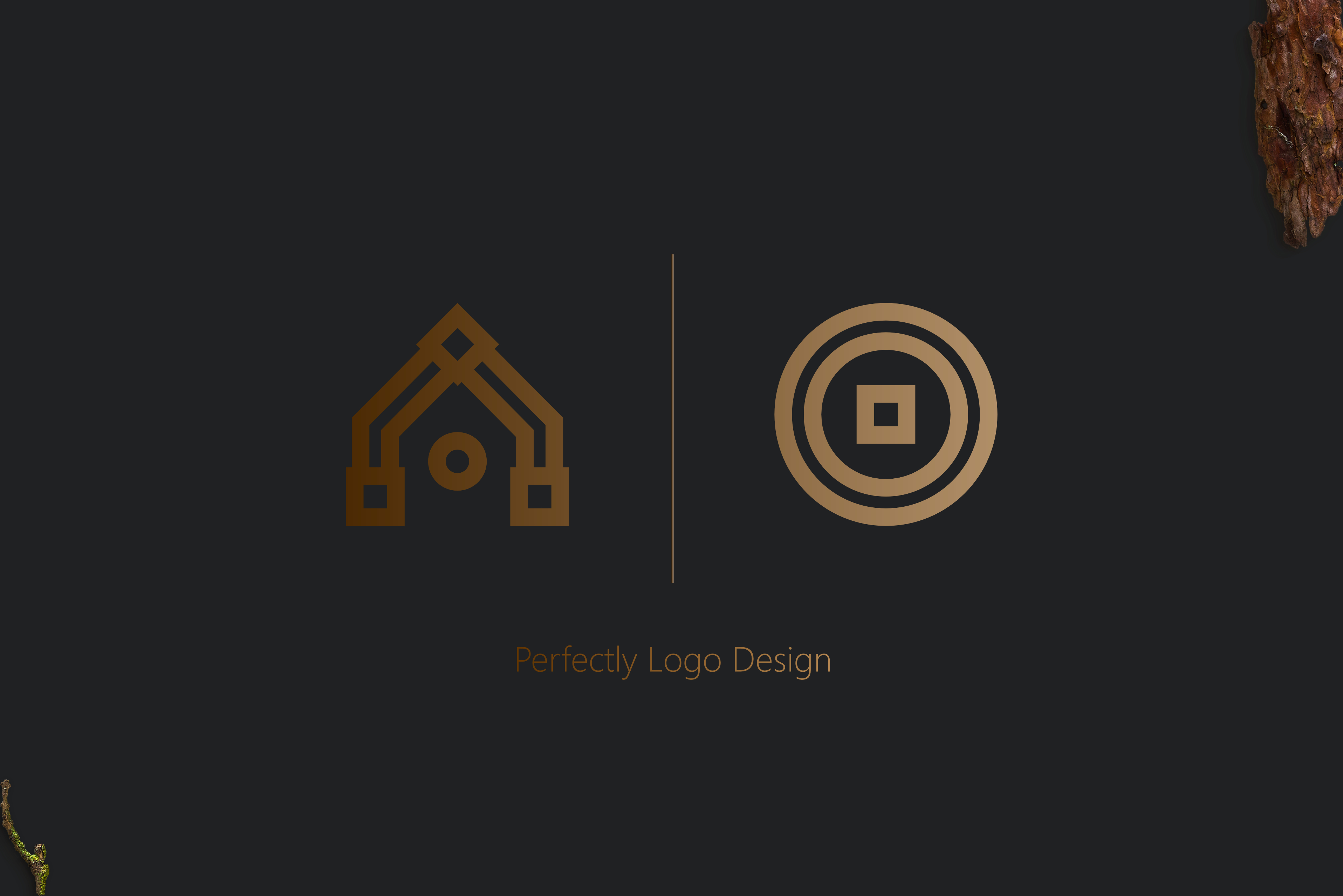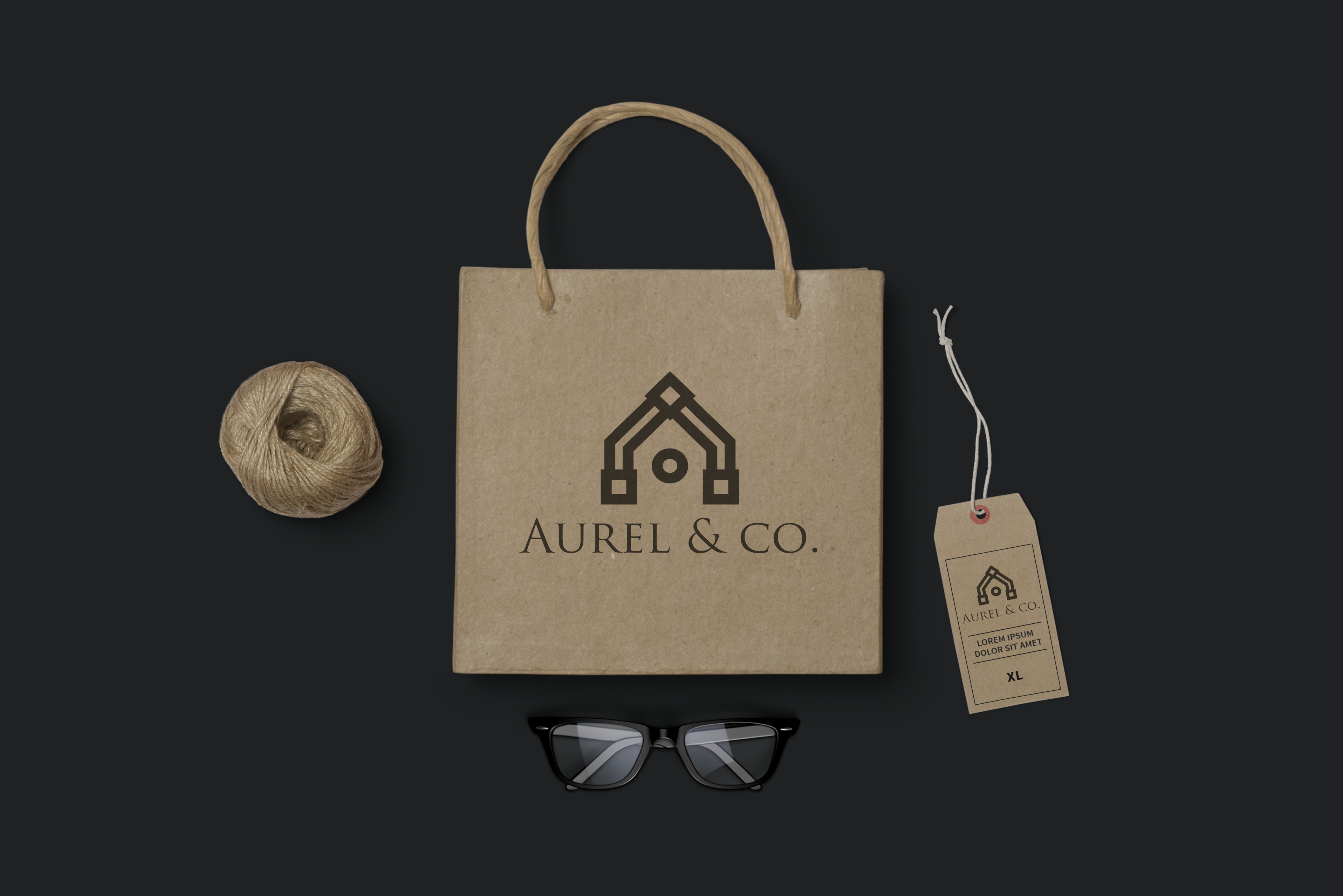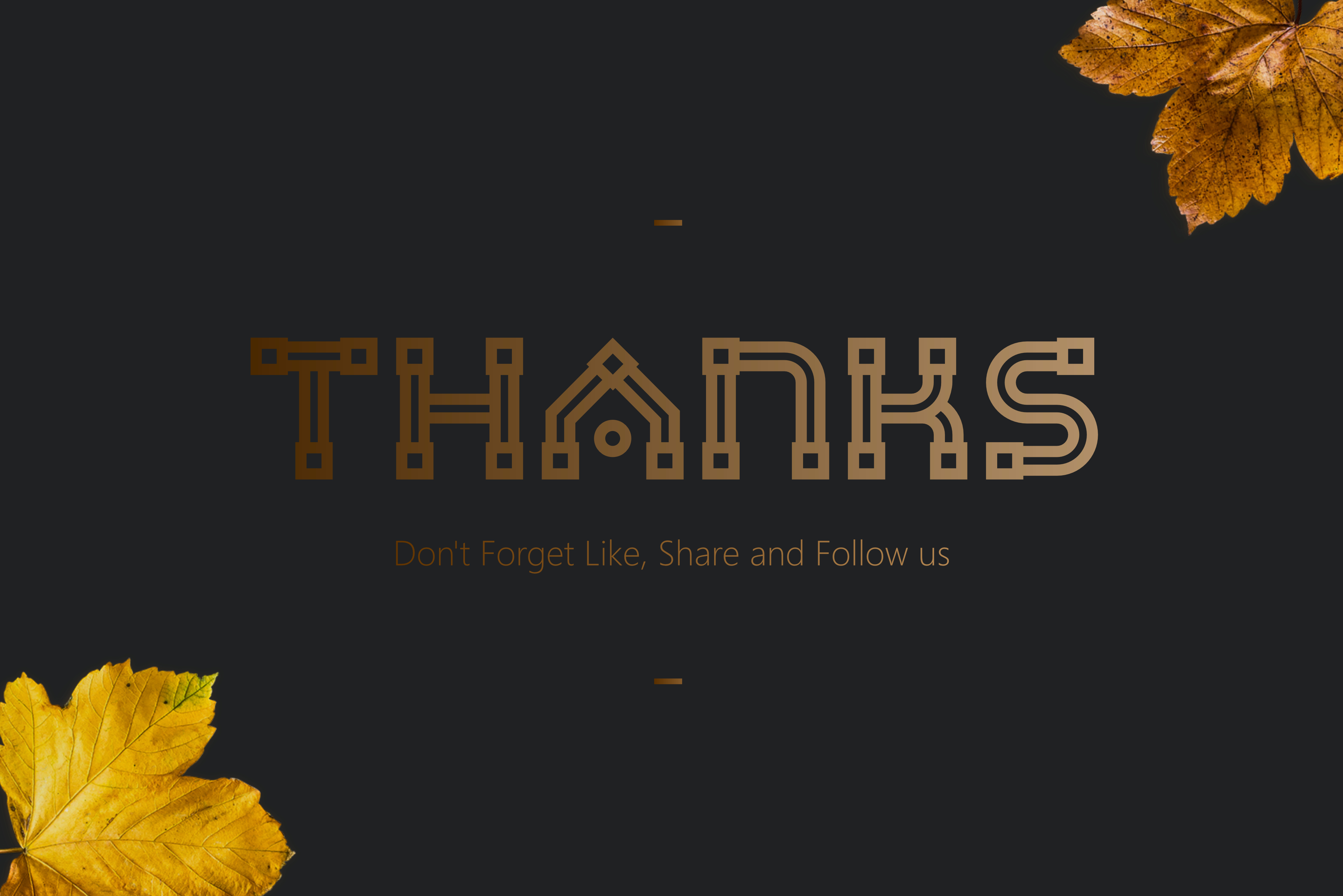
Unleash Your Creativity with Caos Font: A Logo Typeface for Stunning Branding and Designs
Are you a designer or crafter looking for a unique and impactful font to elevate your branding or design projects? Look no further than Caos Font, a logo typeface that is sure to make a lasting impression. In this article, we’ll dive into the world of Caos Font, exploring its features, benefits, and uses, as well as provide tips and inspiration for incorporating it into your work.
What is Caos Font?
Caos Font is a carefully crafted logo typeface designed to help you create stunning branding and designs. Its unique and stylish letterforms make it perfect for a wide range of applications, from logos and titles to packaging and advertising. With its bold and eye-catching appearance, Caos Font is sure to grab attention and leave a lasting impression on your audience.
Key Features of Caos Font
- Unique and Stylish Letterforms: Caos Font features distinctive and stylish letterforms that set it apart from other fonts.
- Bold and Eye-Catching: The font’s bold appearance makes it perfect for headlines, titles, and logos that need to grab attention.
- Versatile: Caos Font can be used for a wide range of applications, from branding and advertising to packaging and design.
- Easily Customizable: The font is easily customizable, allowing you to adjust the letterforms to fit your specific needs.
Benefits of Using Caos Font
So why choose Caos Font for your branding or design projects? Here are just a few benefits of using this versatile and stylish font:
- Stand Out from the Crowd: With its unique and bold appearance, Caos Font is sure to help your brand or design stand out from the competition.
- Professional and Polished Look: The font’s stylish letterforms and bold appearance give your branding or design a professional and polished look.
- Easily Readable: Despite its bold appearance, Caos Font is easily readable, making it perfect for use in a variety of applications.
- Time-Saving: With Caos Font, you can create stunning branding and designs in no time, saving you time and effort.
Using Caos Font in Your Designs
So how can you incorporate Caos Font into your designs? Here are a few tips and ideas to get you started:
- Logos and Branding: Use Caos Font to create a unique and memorable logo for your brand, or to add a touch of personality to your branding materials.
- Headlines and Titles: The font’s bold appearance makes it perfect for use in headlines and titles, adding a touch of drama and impact to your designs.
- Packaging and Advertising: Caos Font is also great for use in packaging and advertising, helping your product or service stand out on store shelves or in crowded markets.
Inspiration and Examples
Still not sure how to use Caos Font in your designs? Here are a few examples and inspiration to get you started:
- Fashion Brand Logo: Use Caos Font to create a stylish and memorable logo for a fashion brand, adding a touch of personality and flair.
- Product Packaging: The font’s bold appearance makes it perfect for use in product packaging, adding a touch of drama and impact to your product’s design.
- Advertising Campaign: Caos Font is also great for use in advertising campaigns, helping your message stand out in crowded markets.
In conclusion, Caos Font is a versatile and stylish logo typeface that is perfect for designers and crafters looking to elevate their branding or design projects. With its unique and bold appearance, Caos Font is sure to make a lasting impression on your audience. Whether you’re looking to create a stunning logo, add a touch of personality to your branding materials, or simply want to try something new, Caos Font is a great choice.